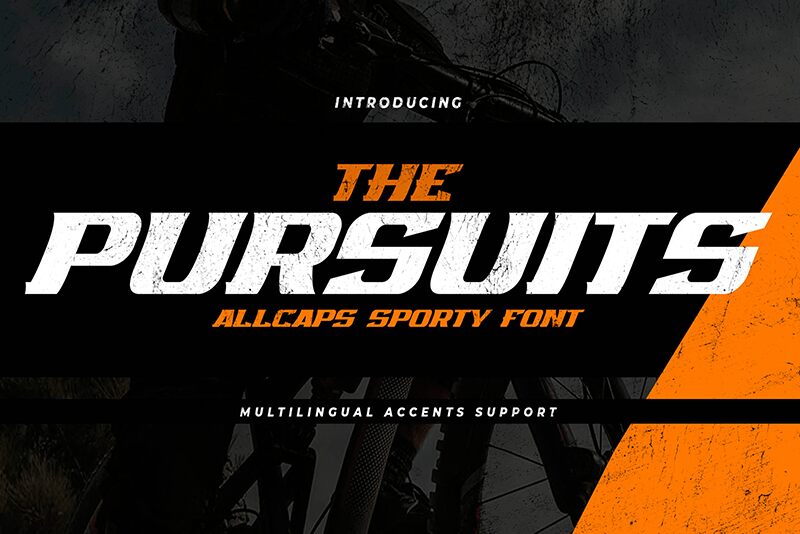
The Pursuits, crafted by Gassstype, is a display font that exudes energy and modernity. Its techno, sporty style is defined by an extra-bold weight and an expanded width, creating a striking presence in any visual composition. The sleek lines and dynamic angles present in each character suggest speed and precision, making it an ideal choice for projects that aim to convey motion or futuristic concepts.
With its assertive character shapes and cutting-edge design, The Pursuits stands out for its aesthetic appeal that resonates with contemporary trends. Whether used in branding for athletic apparel, event promotions for competitive sports, or dynamic titles in interactive media, this font commands attention with its bold typeface.
The Pursuits offers versatility while maintaining its distinctive techno-sporty appearance. It's not just a font; it's a statement piece that can elevate the visual identity of creative endeavors seeking to make an impact.